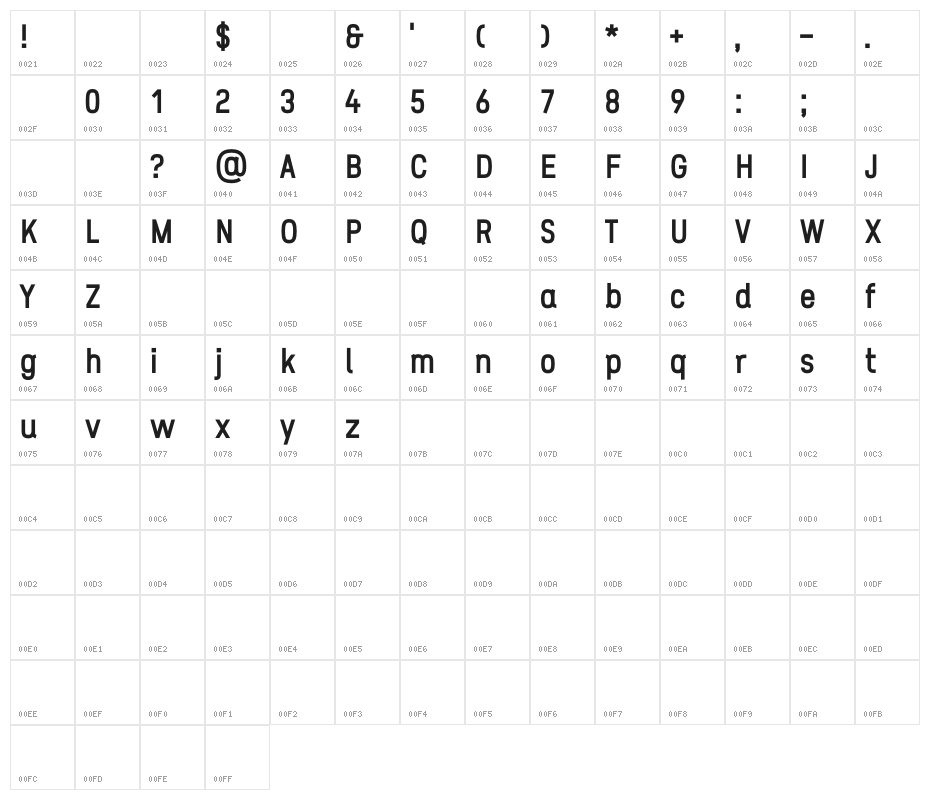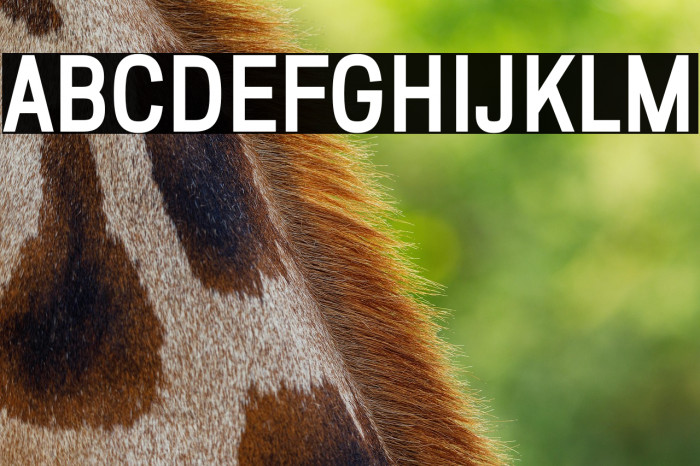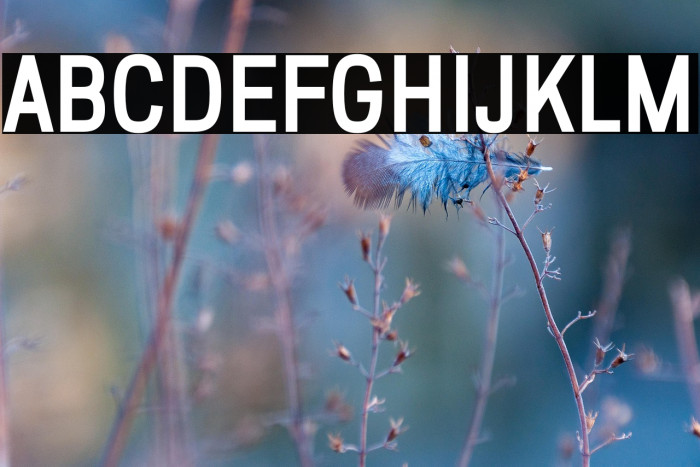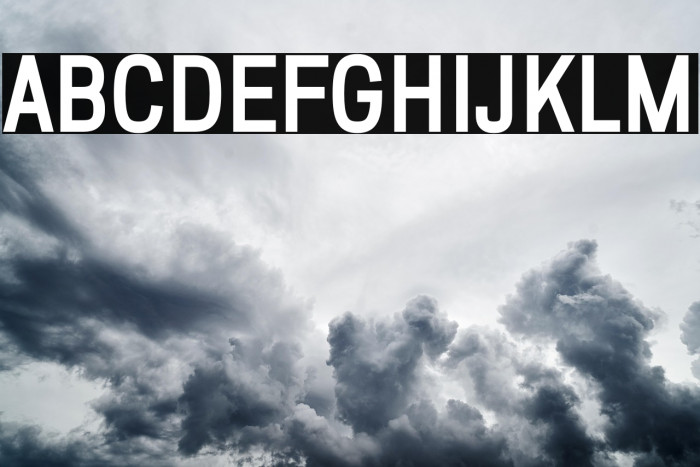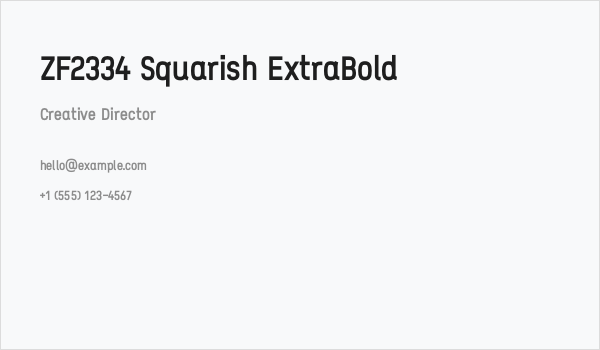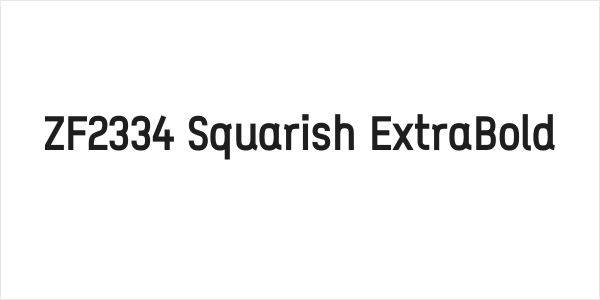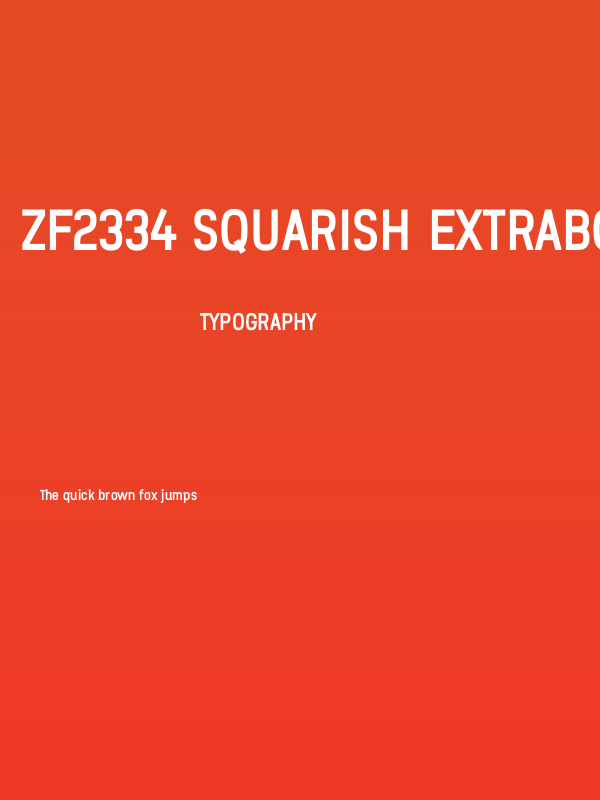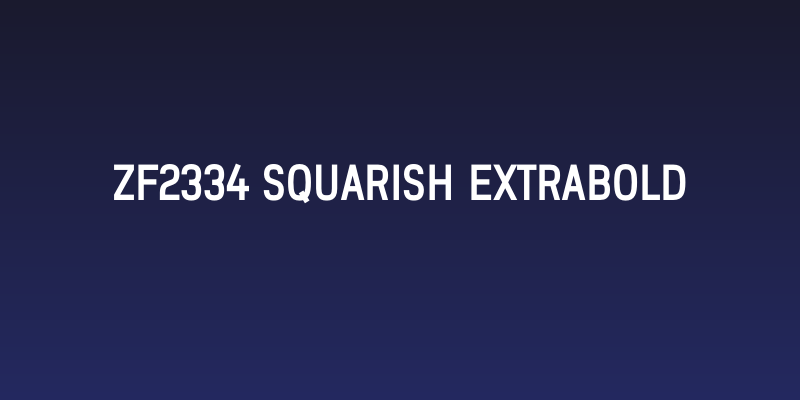
ZF2334 Squarish ExtraBold Font
ZF2334 Squarish ExtraBold Description
This font features a bold and geometric design with a squarish appearance. The characters are uniform and consistent, with straight lines and sharp angles that give it a modern and robust look. The uppercase and lowercase letters maintain a similar width, contributing to a cohesive and structured appearance. The numbers and special characters are designed to match the overall style, ensuring readability and visual harmony. This font's extra bold weight makes it stand out, ideal for making a strong visual impact.
| Proposed Projects | Ideal for branding, headlines, posters, and digital media where a strong, modern presence is desired. |